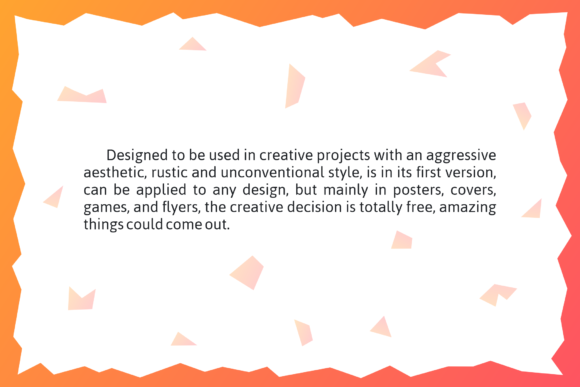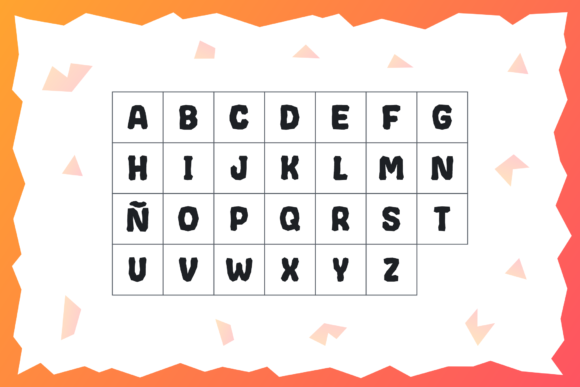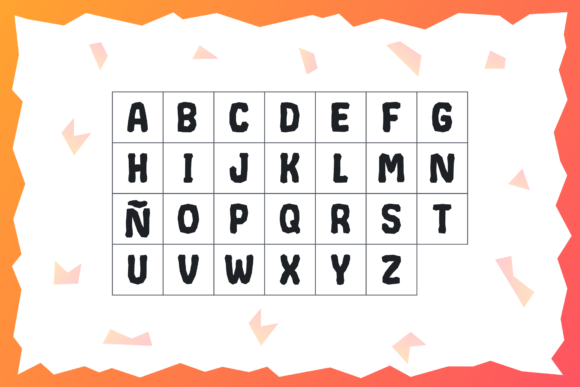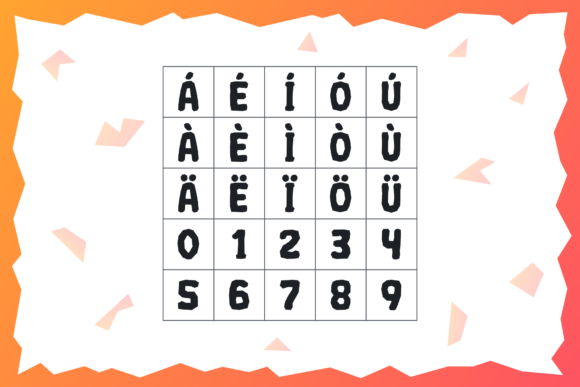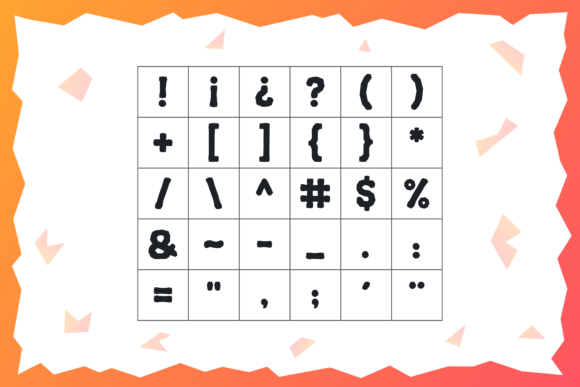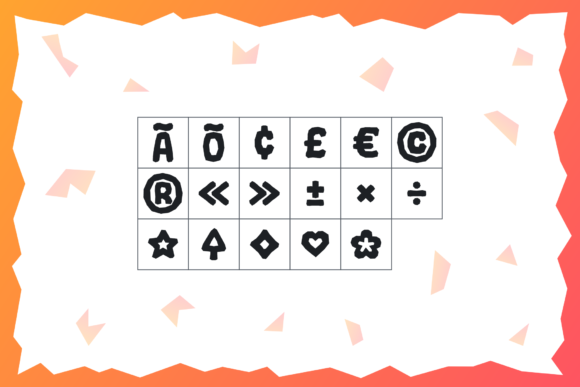
Introduction to Crumpled Font
As a designer, there’s nothing quite like the thrill of bringing a new project to life. The blank canvas stares back at you, begging to be filled with creativity and imagination. It’s in these moments that we need the right tools to help us stand out from the crowd. That’s where the Crumpled Font comes in – a game-changing design resource that’s about to revolutionize your creative projects.
With its bold, handcrafted style and rustic aesthetic, the Crumpled Font is the perfect addition to any designer’s toolkit. Whether you’re working on a logo, branding, packaging design, or anything in between, this high-quality font is sure to elevate your work to the next level. And the best part? It’s available for free download, making it an accessible design resource for designers of all levels.
What sets the Crumpled Font apart is its versatility. Pair it with a transparent background and watch it come alive on your designs. Its unique, crumpled texture adds a touch of sophistication and whimsy, making it a must-have for any designer looking to add a little extra something to their work.
Key Features of Crumpled Font
- High-quality, unique font design ideal for creative projects requiring a distinctive look.
- Features a crumpled, distressed texture with a transparent background, allowing for easy customization.
- Designed to be highly versatile and suitable for a wide range of design applications, from logos to print materials.
- Perfect for designers seeking a high-quality, free design resource to add a unique touch to their work.
Honest Review: Crumpled Font
As a designer, I’m always on the lookout for high-quality design resources that can elevate my creative projects. Recently, I had the chance to try out the Crumpled Font, and I must say it’s been a game-changer.
What works well: ✨ The Crumpled Font has a unique, textured look that adds a lot of depth and interest to any design. The font is also highly customizable, with a wide range of styles and sizes to choose from. The transparent background option is also a major plus, making it easy to layer the font over any image or background.
- Unique and textured design
Limitations: ⚠️ One thing to keep in mind is that the font can be a bit glitchy at times, especially when using it in large quantities. Additionally, some users may find the texture to be a bit overwhelming, so it’s worth experimenting with different styles and sizes to find the right balance.
Overall, I’m really impressed with the Crumpled Font. It’s a free download, and the quality is top-notch. I’ve already started using it in several of my projects, and I’m confident it will become a go-to resource for me in the future.
Crumpled Font
Crumpled Font is perfect for a variety of use cases, including logos, branding materials, and social media graphics. Its unique design and transparent background make it a versatile design resource for any creative project.
To get the most out of Crumpled Font, experiment with different font sizes, colors, and styles to achieve the desired effect. You can also combine Crumpled Font with other design elements to create a unique and eye-catching design.